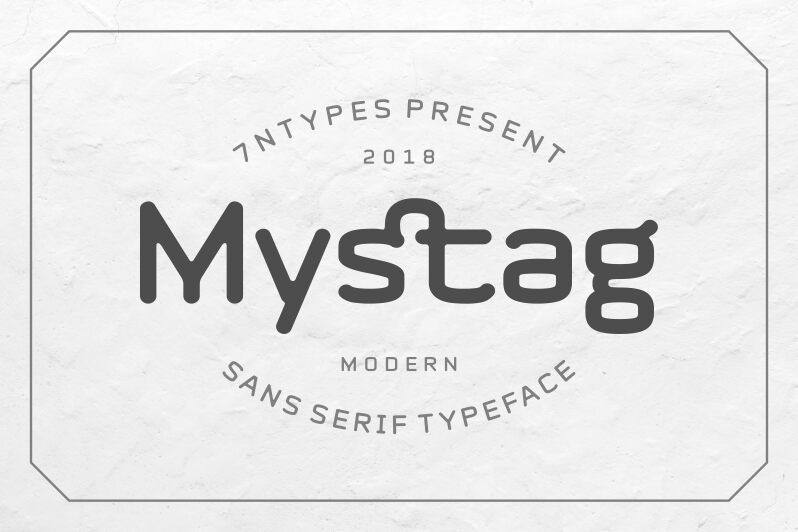
Mystag, a creation of designer Situjuh Nazara of 7NTypes, exudes a captivating blend of elegance and sophistication. This italic font showcases a harmonious balance of graceful curves and precise angles, evoking a sense of timeless allure. The seamless flow of its letterforms invites the reader on a visual journey, where each character serves as a unique artistic expression.
The versatility of Mystag opens up a realm of possibilities for designers seeking to elevate their projects. Its refined aesthetic lends itself to a wide array of applications, from high-end editorial layouts to captivating branding initiatives. Whether crafting a luxurious editorial spread or crafting a sophisticated brand identity, Mystag's distinctive flair can elevate the visual impact of any design.
Mystag